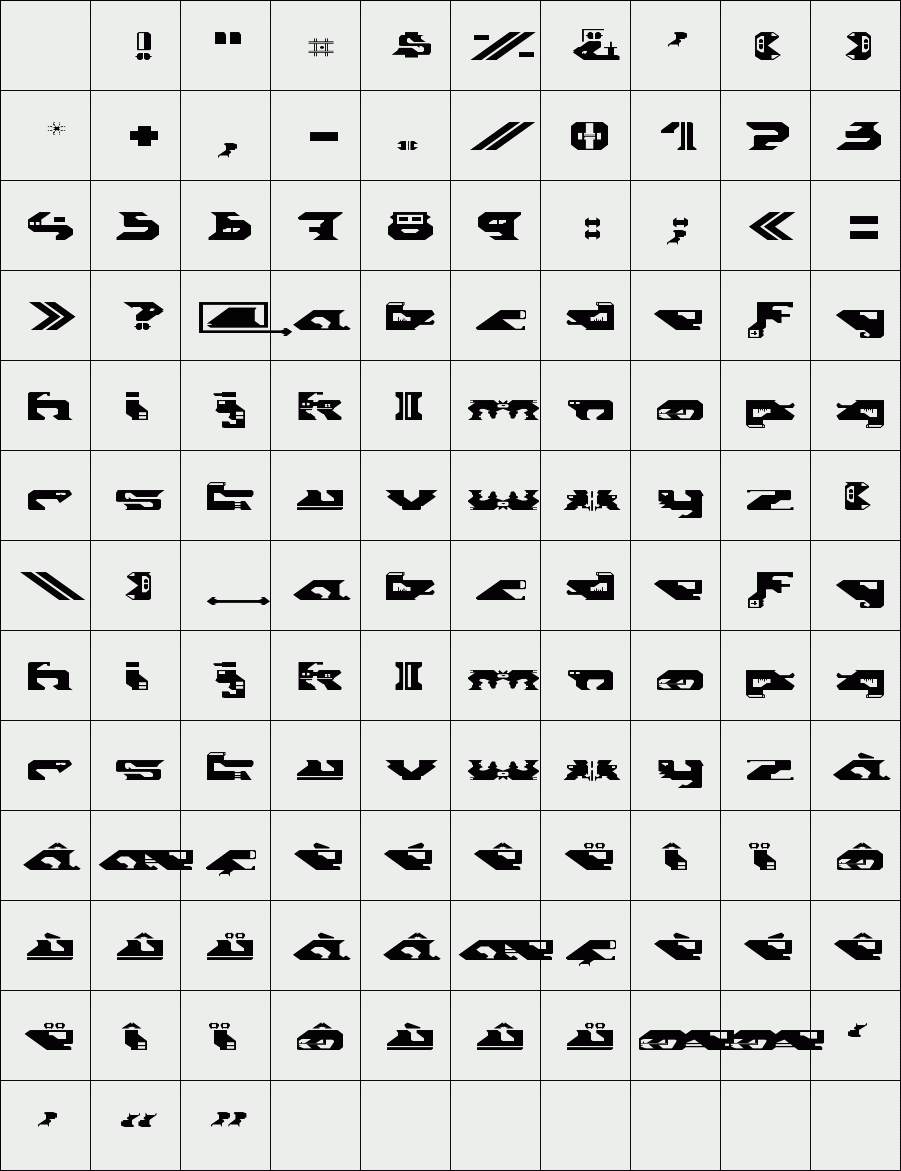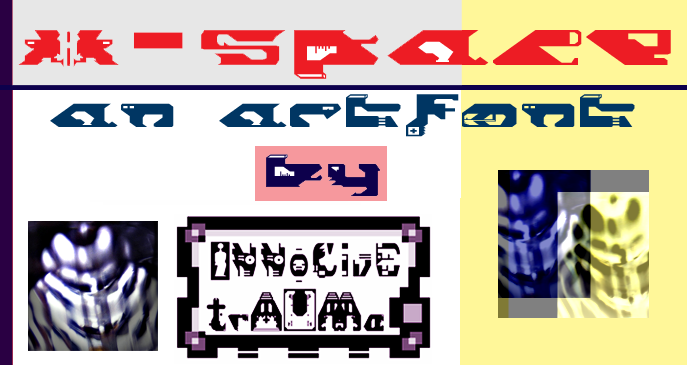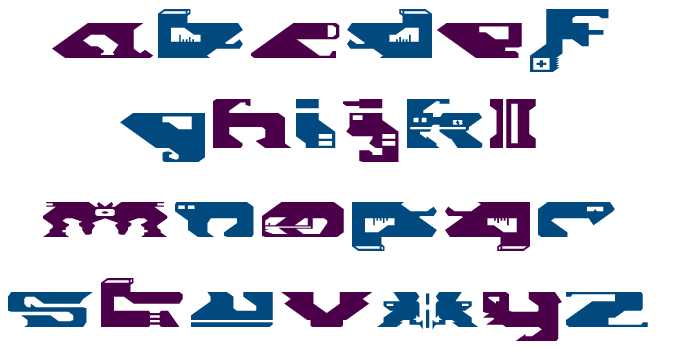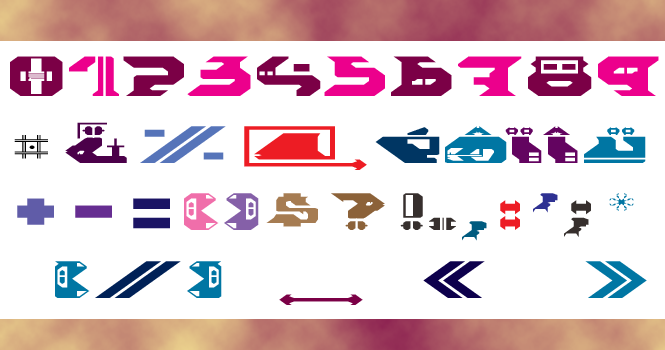
trAUMa 116 - X-Space
"X-Space", like all the "trAUMa" series, works at the frontier between Art & Type Design, Figuration & Abstraction, each font is a comprehensive world in which every glyph is a "living" entity. But put together they can produce your messages in the most accurate way.